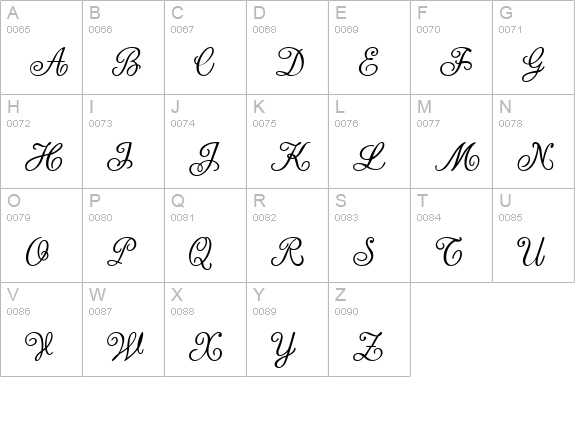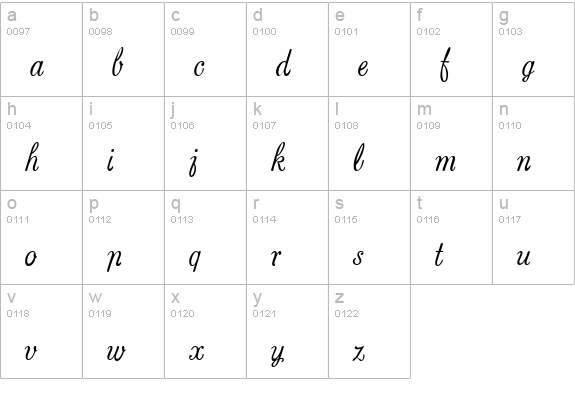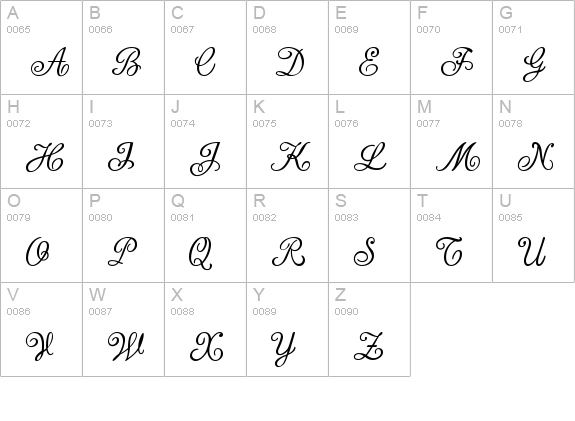
Stanzie JF Font Details
Introducing Stanzie JF, a stunningly elegant font that combines modern sophistication with timeless charm. This impeccable typeface is perfect for adding an air of refinement to any design project, whether it be for branding, editorial work, or simply adding a touch of class to your personal correspondence. Stanzie JF features gracefully flowing letterforms with delicate serifs that exude a sense of grace and finesse. Its balanced proportions and clean lines create a harmonious and legible composition, making it a versatile choice for both headlines and body text. But what truly sets Stanzie JF apart is its unique ability to effortlessly capture attention while maintaining an understated elegance. Its distinctive curves and impeccable attention to detail make it a true work of art in the world of typography. What's even better is that Stanzie JF is available free of charge! Yes, you read that right. This remarkable font can be freely downloaded at FontsMarket.com, making it accessible to designers, artists, and enthusiasts alike. Now you can elevate your designs without breaking the bank. So why wait? Download Stanzie JF today and unlock the limitless possibilities it offers. Whether you're crafting a stunning logo, creating captivating headlines, or simply adding a touch of refinement to your next project, Stanzie JF is the perfect choice. Don't miss out on this exceptional font that effortlessly combines beauty and functionality. Get your hands on Stanzie JF now and let your creativity soar!